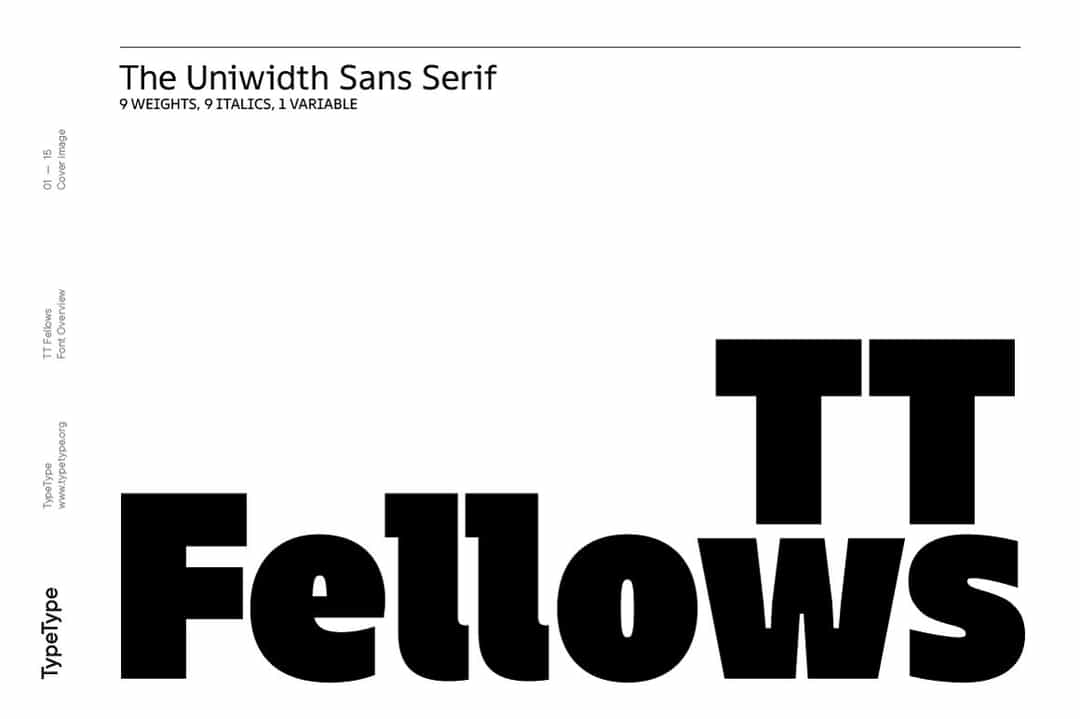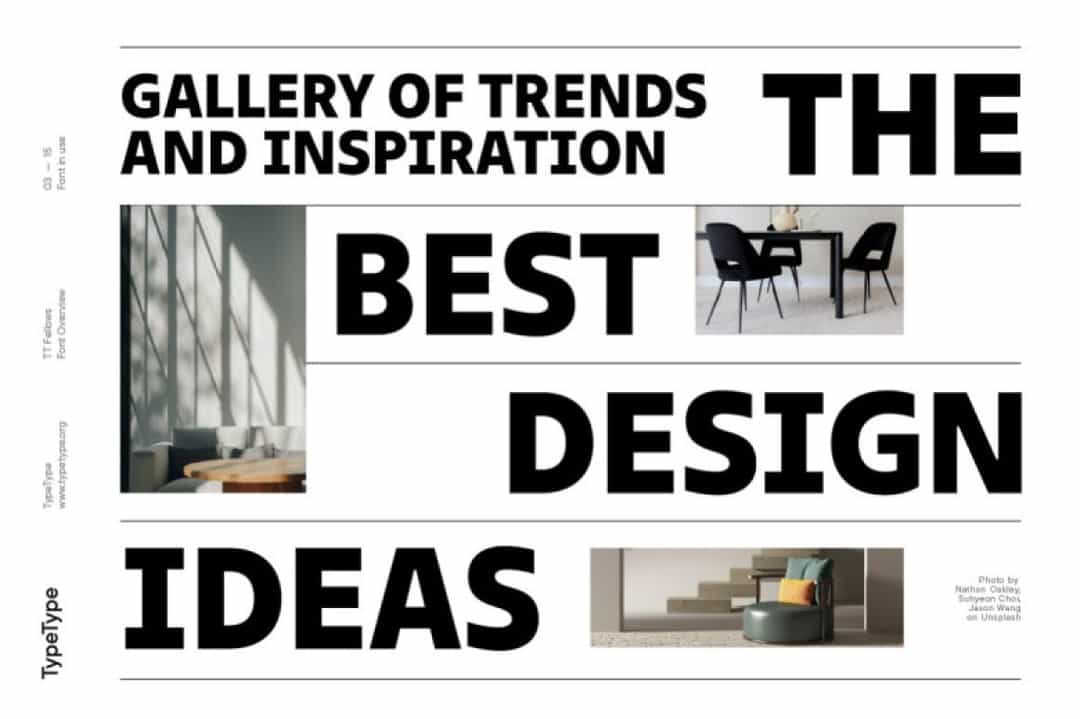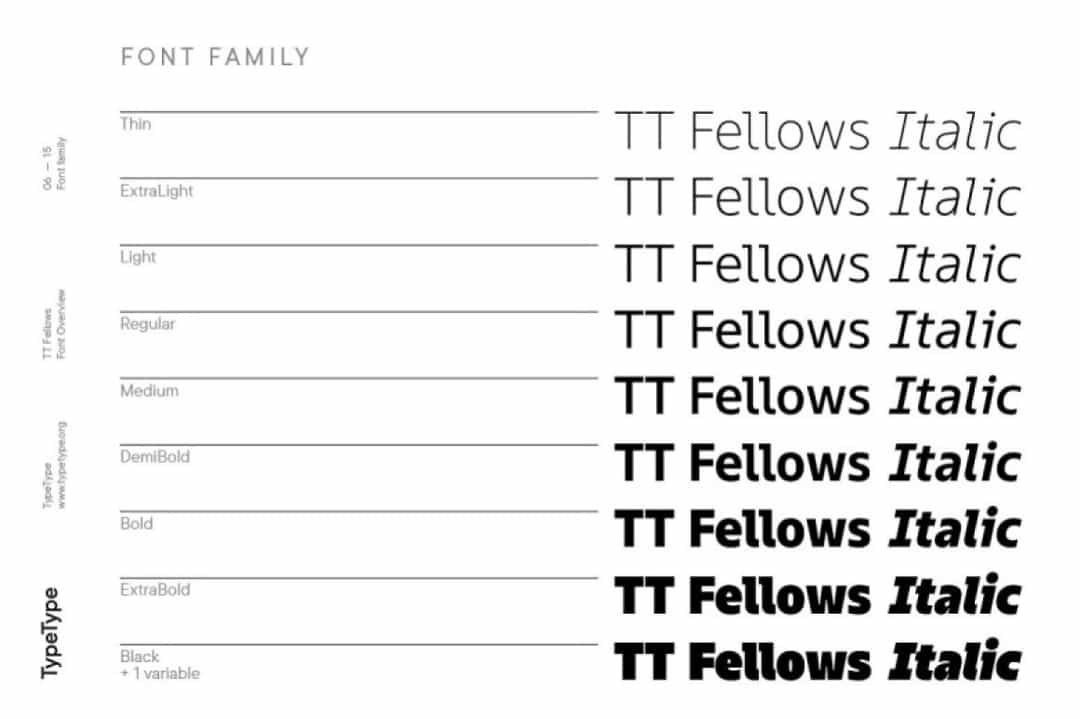
Meet TT Fellows, an exciting new font designed to work easily in multiple projects. At first glance, its vibe can appear welcoming or assertive depending on its use; using this typeface lets you show it both sides by writing text entirely in capital letters for an eye-catching bold style effect.